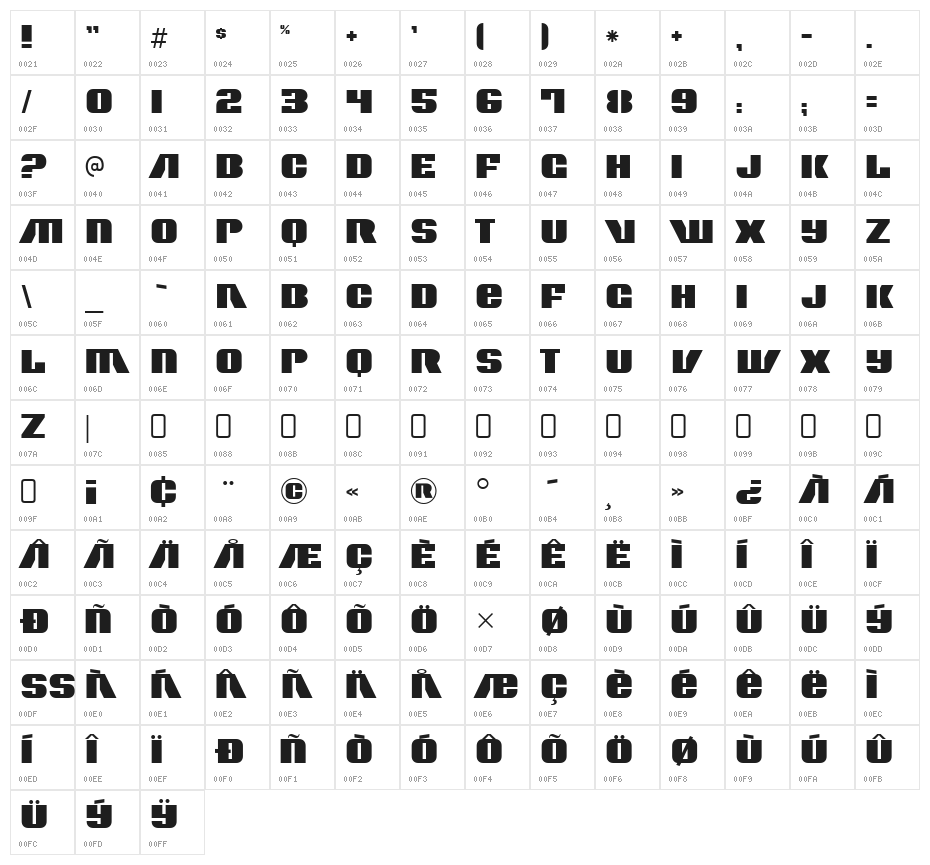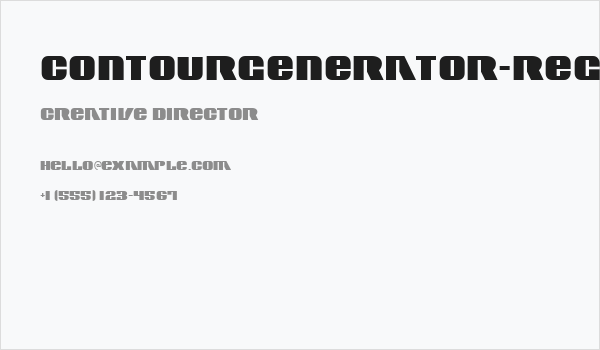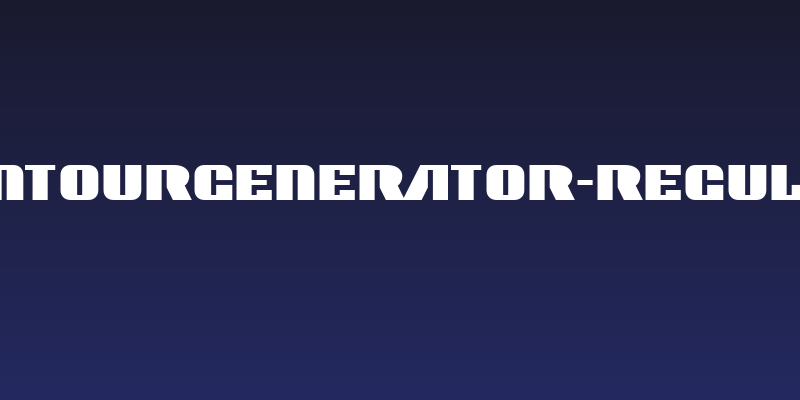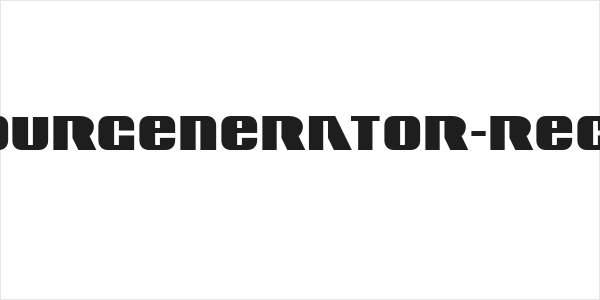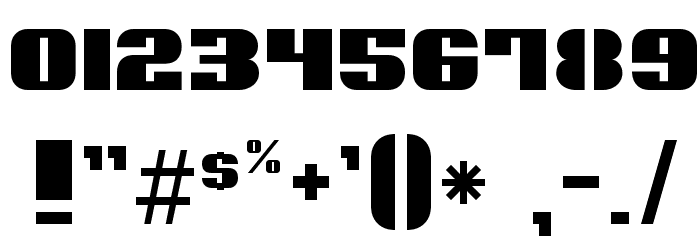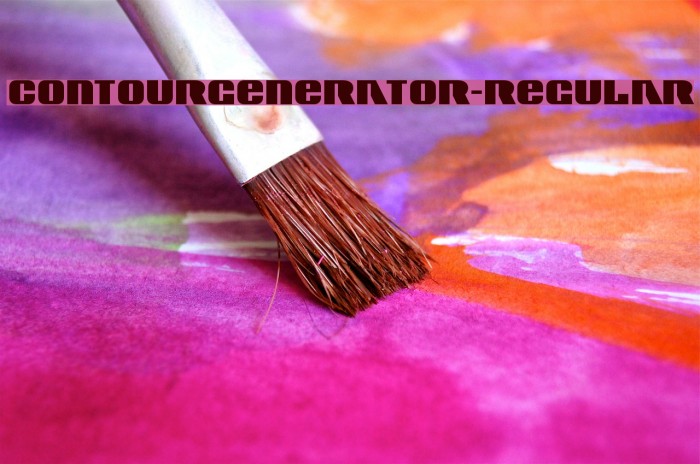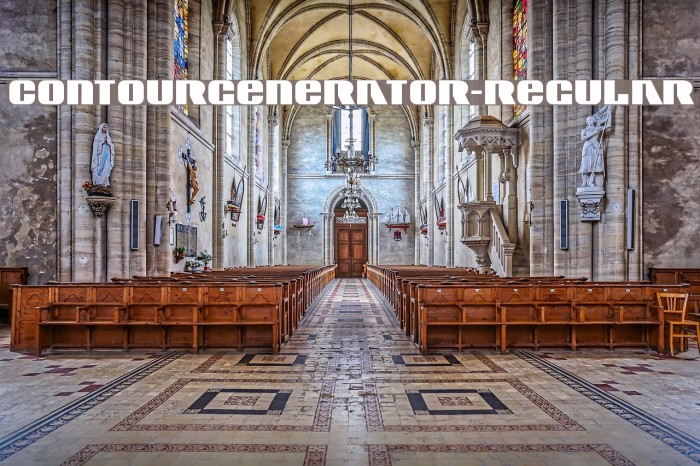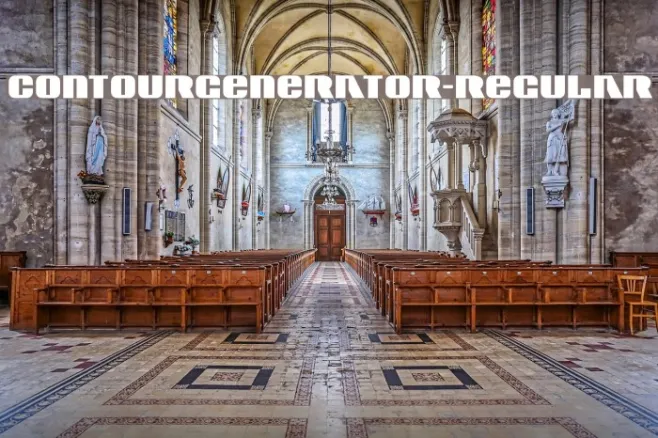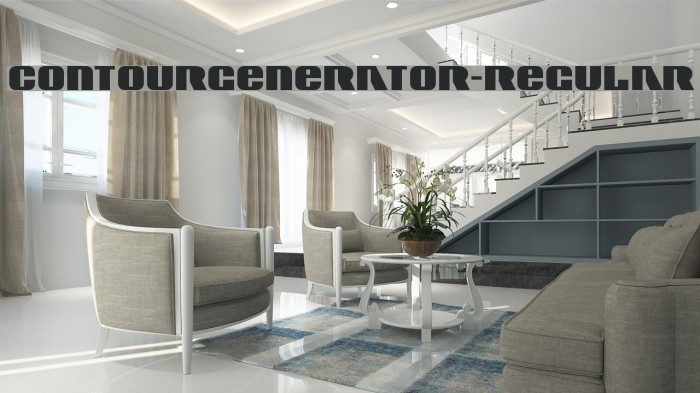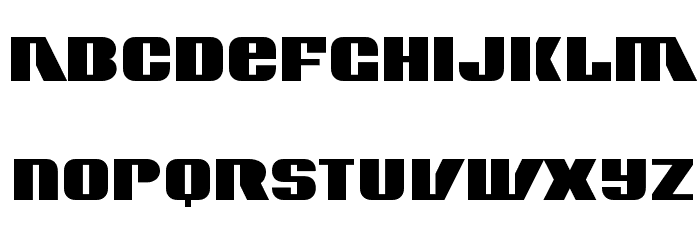
ContourGenerator-Regular Font
ContourGenerator-Regular Description
This font features a bold and geometric design with strong, angular lines and a modern aesthetic. The characters are constructed with a distinct blocky appearance, creating a sense of strength and stability. The uppercase letters are particularly striking, with sharp edges and a uniform height that enhances readability. The lowercase letters maintain the same boldness, ensuring consistency across the typeface. Numbers and special characters are equally robust, making them suitable for impactful displays. The overall style is contemporary, with a hint of industrial influence, making it ideal for projects that require a strong visual presence.
| Proposed Projects | Ideal for branding, posters, headlines, and any project that requires a strong, impactful visual statement. |